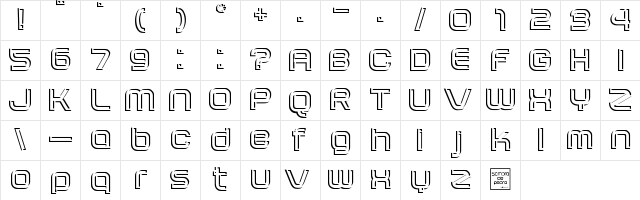
Sombras-Jed@ Regular
Design Context for Sombras-Jed@
Sombras-Jed@ is a composed and adaptable typeface that performs quietly and consistently across a wide range of design contexts.